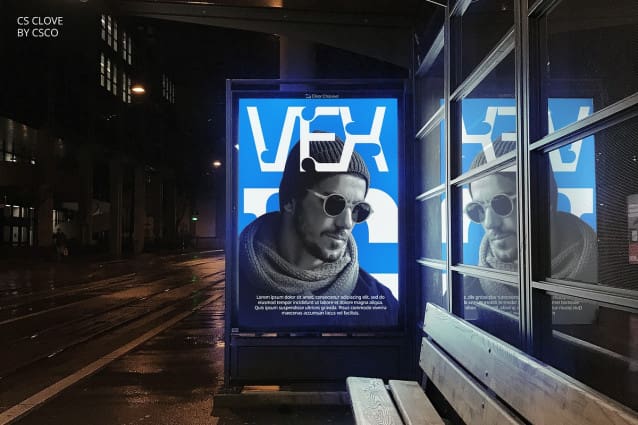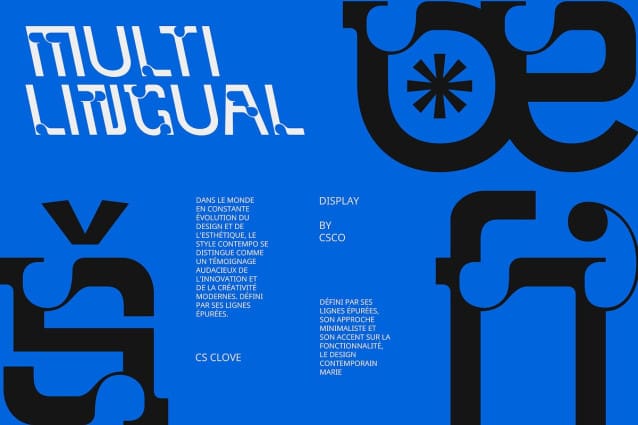
CS Clove Font
CS Clove Font is a modern display font featuring distinctive decorative shapes and ornamental elements. Its unconventional forms provide a striking and innovative design, ideal for adding a creative edge to contemporary projects.
Striking Visual Impact for Attention-Grabbing Designs With its unique decorative features, CS Clove creates a strong visual impact that ensures your designs stand out. Whether used for posters, headlines, or branding, this font grabs attention and enhances the overall design identity with its bold and imaginative style.
Perfect for Creative and Distinctive Applications Ideal for web design, marketing materials, and other contemporary applications, CS Clove offers a distinctive touch that elevates your message. Its ornamental and unconventional forms make it perfect for projects that require a blend of creativity and impact.
Enhance Your Design with CS Clove’s Unique Style Bring a touch of modern elegance and creativity to your work with CS Clove. Its innovative design ensures a memorable and visually captivating presence, making it an excellent choice for any project that aims to stand out and make a statement.